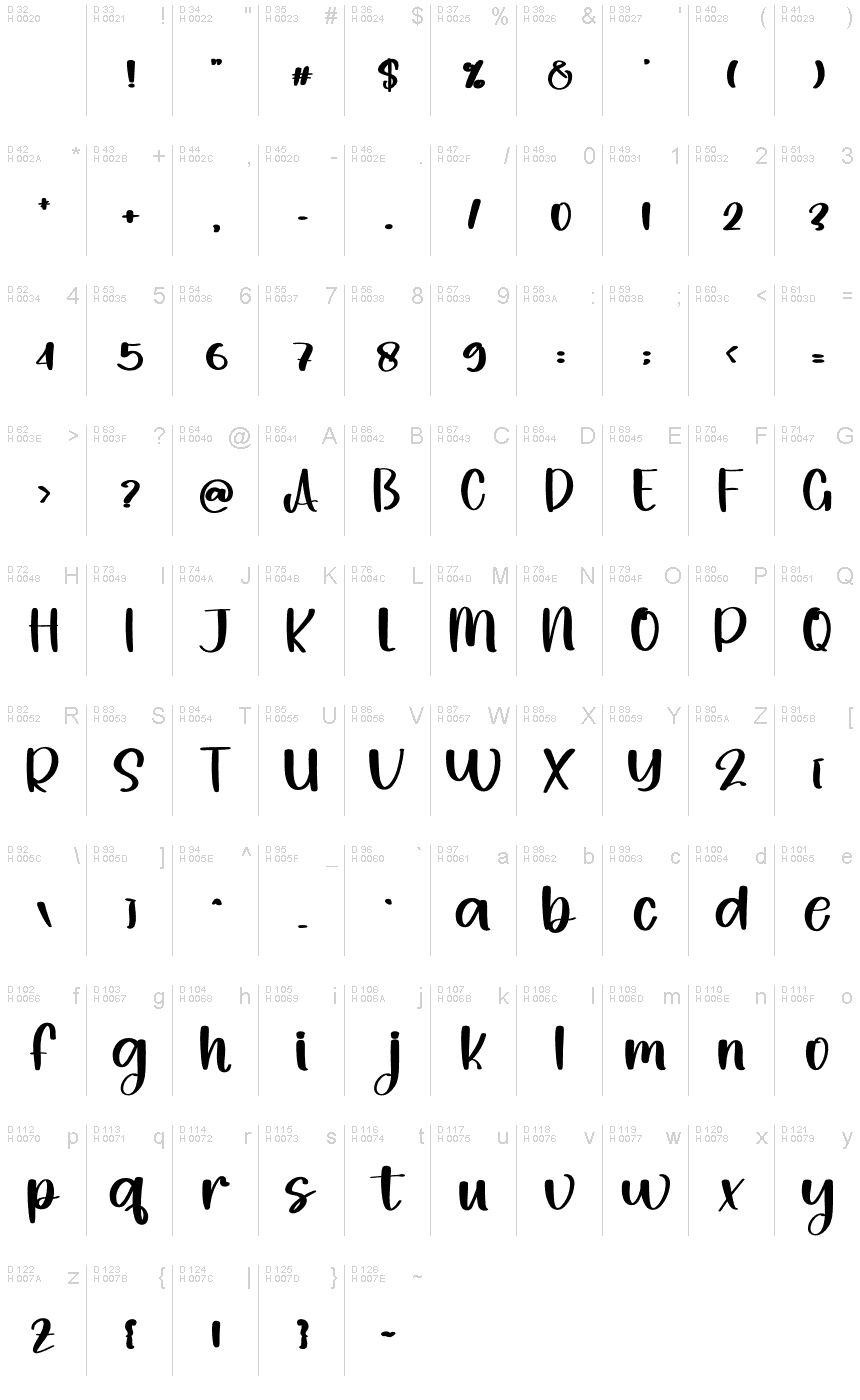
Simple Night
Simple Night, crafted by Inermedia Studio, embodies a semi-bold handwritten style that exudes charm and personality. Its flowing, cursive letters and distinct semi-bold weight lend it an aesthetic appeal that is both inviting and expressive. The individuality of Simple Night makes it a versatile choice for projects that require a touch of warmth and authenticity.
Given its handwritten nature, Simple Night is particularly suited for personal invitations, heartfelt branding materials, and creative editorial work where a human touch can make all the difference. The font's balanced mix of casual elegance ensures it stands out in contexts requiring approachable sophistication.
Embrace the engaging character of Simple Night to add an element of handcrafted beauty to your next design endeavor.